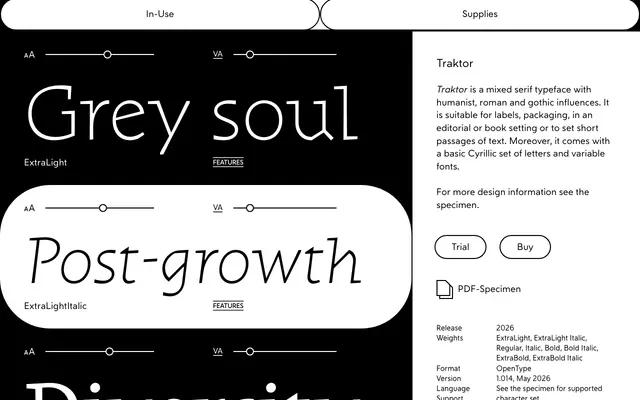
Traktor
Road to Venice Type · 2026
A mixed serif with humanist, roman and gothic influences suited to labels, packaging and editorial settings, available as variable fonts with Cyrillic support.
Traktor draws on three distinct serif traditions, humanist, roman and gothic, blending them into a single typeface with eight styles across four weights from ExtraLight to ExtraBold with matching italics. The family supports an extended Latin character set alongside a basic Cyrillic, making it serviceable across multiple European languages. Variable font files are included, and the design is positioned for label, packaging and editorial use as well as short passages of text.
The foundry describes Traktor as a mixed serif typeface with humanist, roman and gothic influences, placing it at the intersection of several serif traditions rather than firmly within one subcategory.